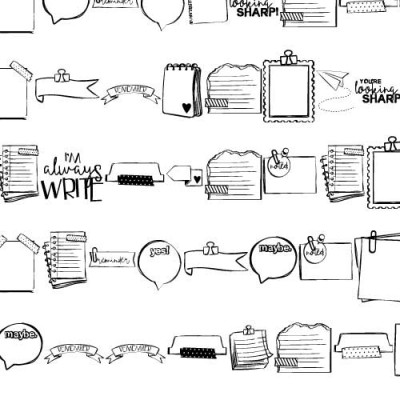
DB Sketched - Notes - DB
This fun doodlebat font features 26 sketched journaling images perfect for cards, crafts, gifts, classrooms, teachers, planner stickers, scrap book pages and more!